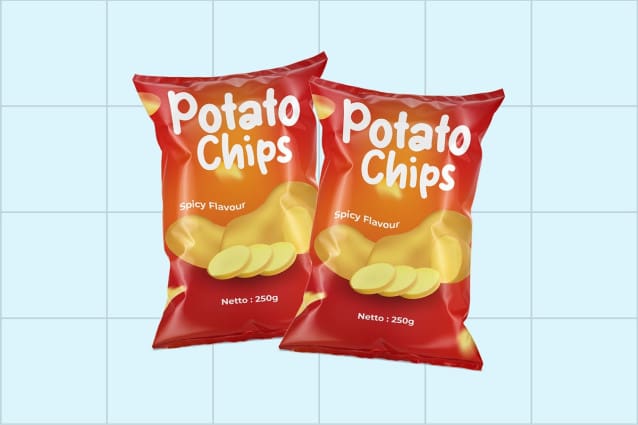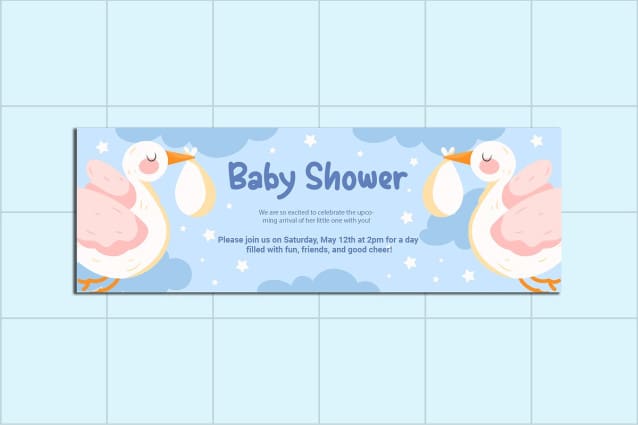
Happy Meal Font
Happy Meal Font, a modern kids font that radiates joyful whimsy and playful delight in every character. Perfect for children’s book designers, educators, and creatives aiming to ignite the imagination of young audiences, Happy Meal offers a delightful and lively typeface that brings fun and excitement to any design.
Ideal for children’s books, posters, educational materials, logos, and toy packaging, HappyMeal’s rounded and cheerful characters provide a friendly and engaging aesthetic. Each letter is meticulously designed to ensure readability and visual appeal, making your designs both effective and enchanting.
The “Happy Meal” font includes a complete set of uppercase and lowercase letters, numbers, punctuation marks, and special characters. This versatility allows for seamless integration into various design projects, from vibrant posters to captivating storybooks.
Infuse your designs with joy and creativity using Happy Meal, the modern kids font that transforms every project into a delightful adventure.